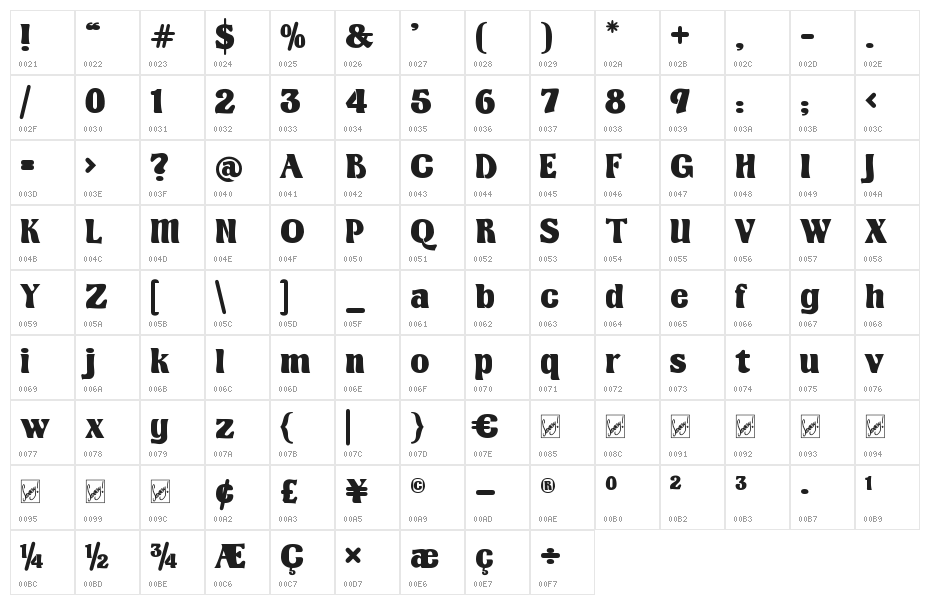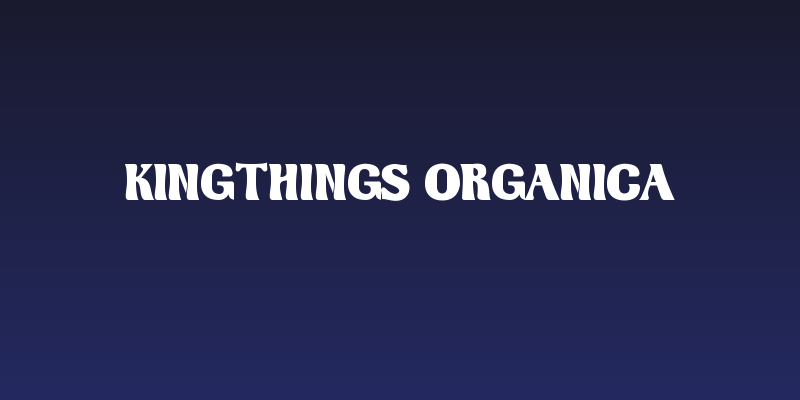
Kingthings Organica Font
Kingthings Organica Description
This font features a bold and playful design with a whimsical flair. The characters are rounded and have a slightly uneven baseline, giving them a hand-drawn appearance. The strokes are thick and consistent, providing a strong visual impact. The uppercase letters are particularly distinctive, with unique curves and angles that add to the font's charm. The lowercase letters maintain the same playful style, with some characters having exaggerated loops and tails. The numerals are bold and easy to read, matching the overall style of the alphabet. Special characters are included, each designed to fit seamlessly with the rest of the font. This font is ideal for projects that require a fun and engaging typeface.